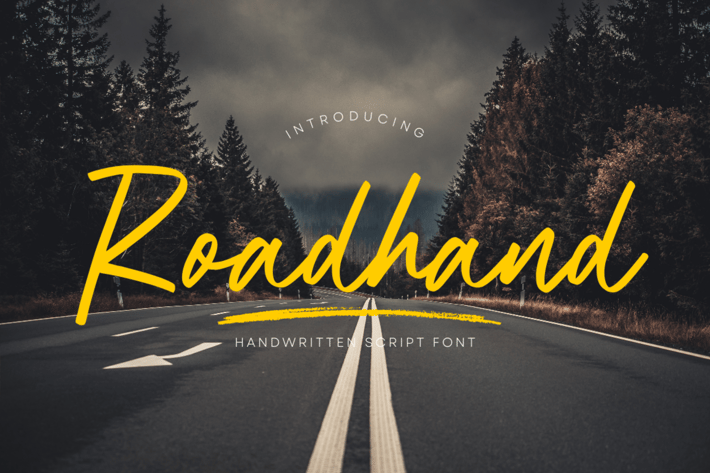
Roadhand - Script Logo Font
Introducing Roadhand, a handwritten script font that brings a personal touch to your designs. With its natural and fluid strokes, this font captures the spontaneity and authenticity of handwritten text. Perfect for projects that seek a casual and approachable vibe, such as greeting cards, journal entries, or social media graphics, Roadhand infuses your designs with a genuine and down-to-earth feel, creating a connection that resonates with authenticity and warmth.